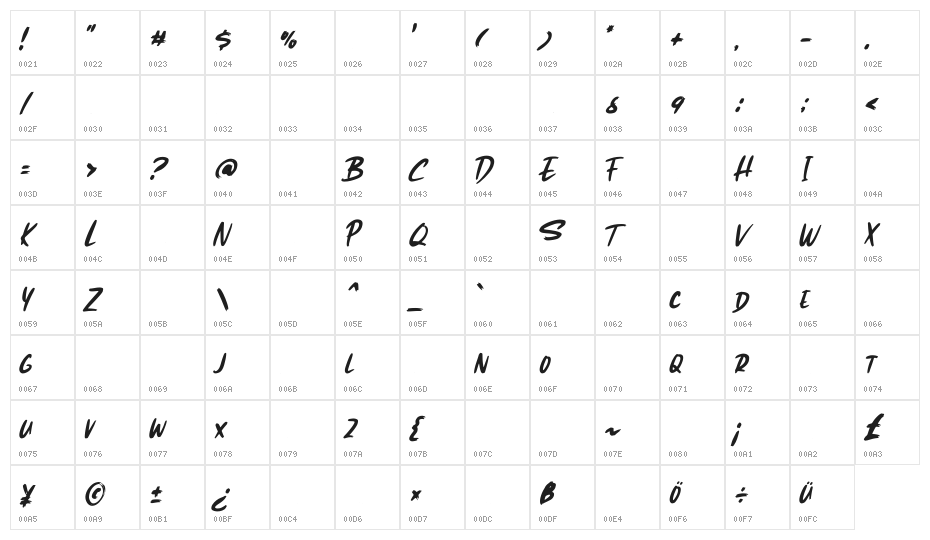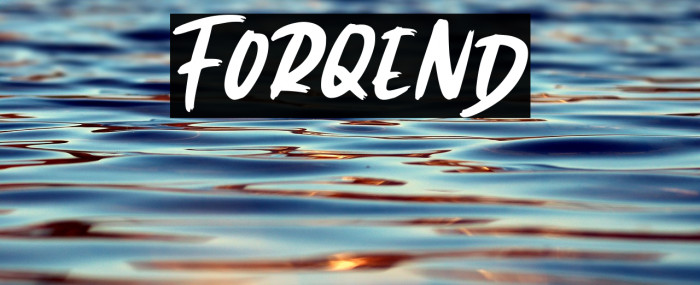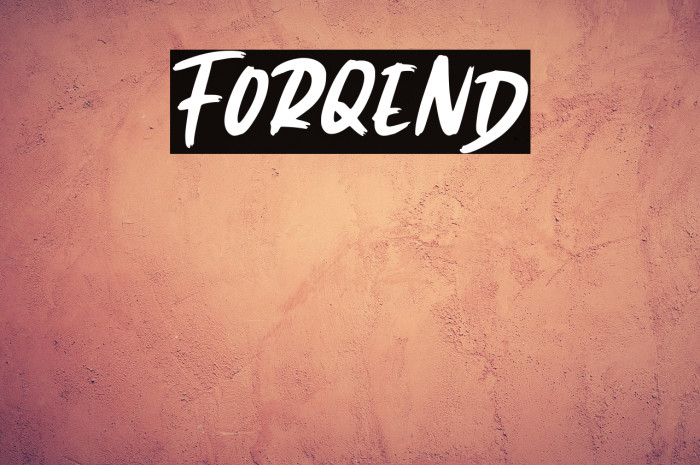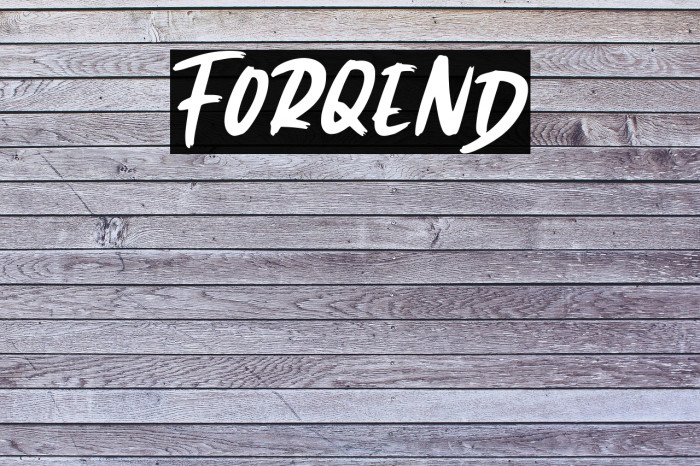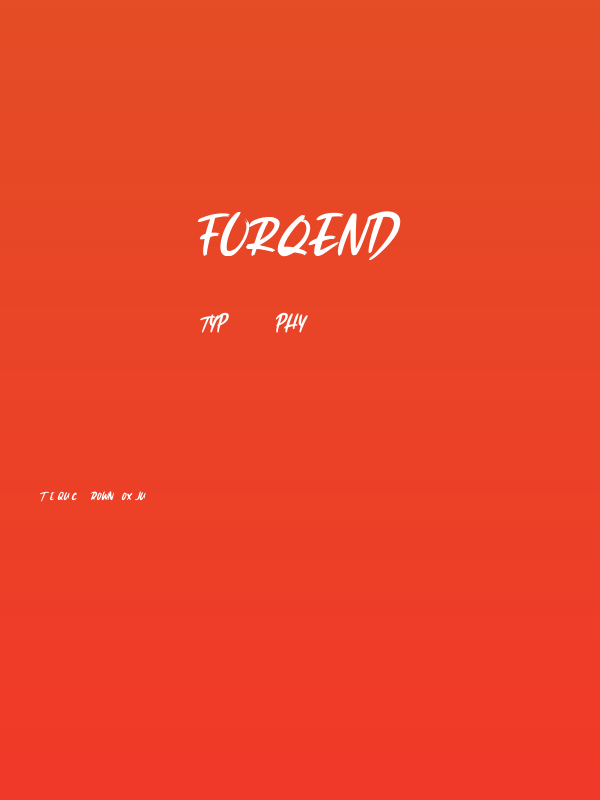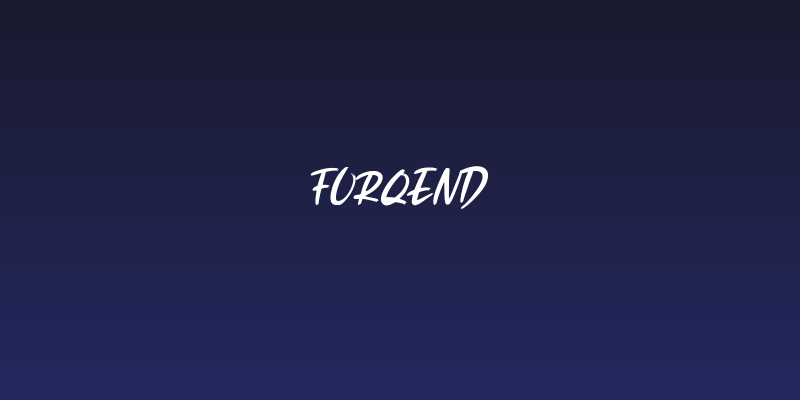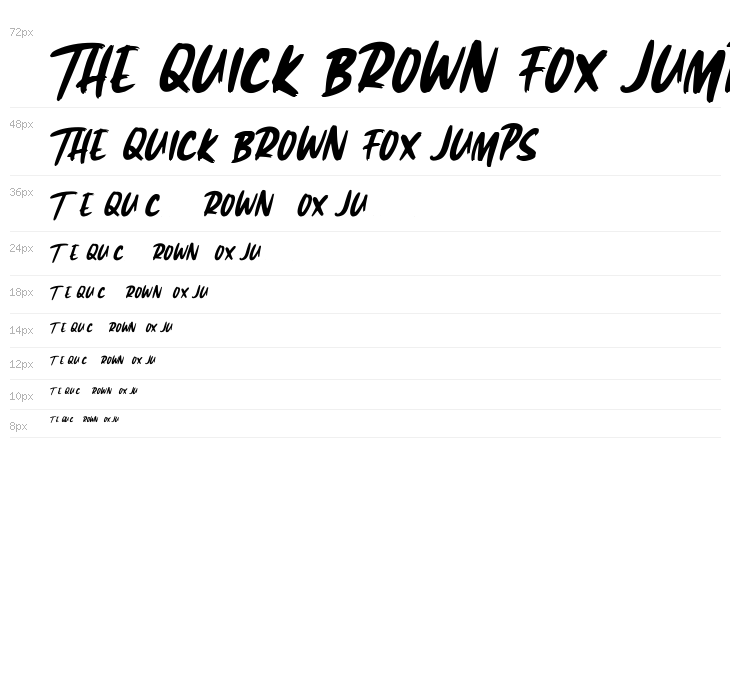
Forqend Font
Forqend Description
This font features a bold and dynamic script style, characterized by its fluid and energetic strokes. The letters are slightly slanted, giving a sense of movement and spontaneity. The uppercase and lowercase letters maintain a consistent style, with exaggerated curves and sharp edges that add a touch of flair. The numbers and special characters follow the same expressive design, making the font versatile for various creative applications. Its bold presence and artistic flair make it suitable for projects that require a strong visual impact.
| Use Case | Logos, Headlines, Posters |
| Proposed Projects | Ideal for branding, posters, invitations, and creative designs that require a bold and artistic touch. |